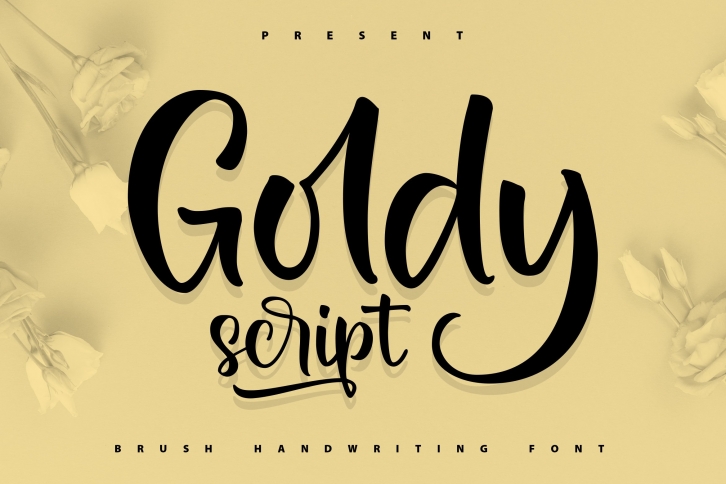
Goldy is a gorgeous font that was realeased on February 1, 2021. The font can be used in many style contexts and design environments. Perfect for invitations, magazines, websites, logos, and more! It was designed by Vunira and the file size is 8.49 MB. Thanks for checking out this font!